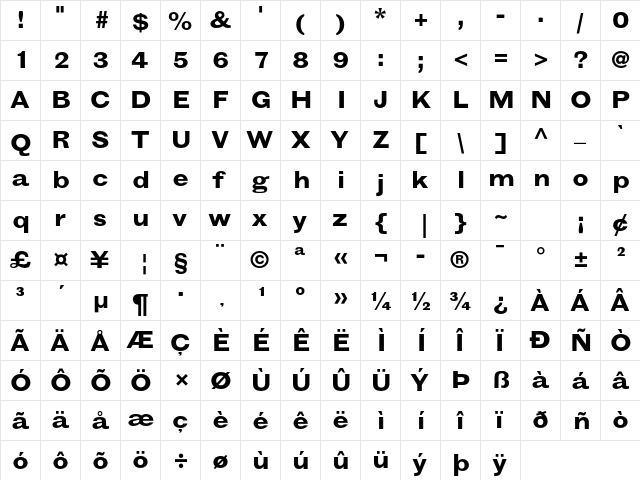
Grotesque MT Std Bold Extended
Design Context for Grotesque MT Std Typeface
Grotesque MT Std is a composed and adaptable typeface that performs quietly and consistently across a wide range of design contexts. Its bold stroke weight gives it real presence on the page.